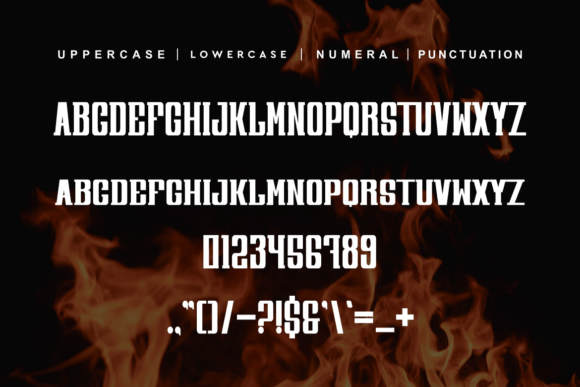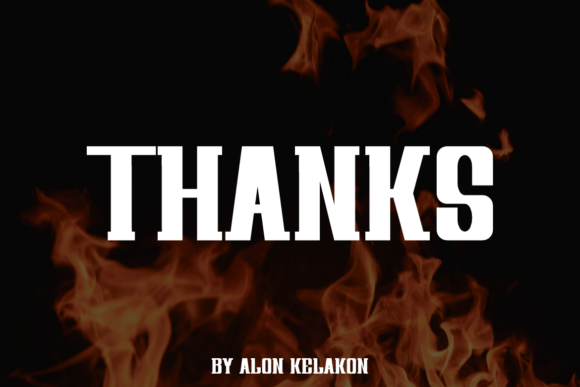
Introduction to Power Colthic Font Font
Fonts play a crucial role in design, and the Power Colthic Font font is a typeface that brings both character and versatility to any project. Whether you’re working on a branding project, a website, or a print design, the Power Colthic Font font offers a unique style that can elevate your work.
Introducing a strikingly unique typeface, meticulously crafted for the creative design enthusiast.
This versatile font breathes life into a myriad of creations such as labels, captivating movie scenes, eye-catching posters, theatrical title sequences, electrifying gig promotions, artistic album covers, sleek logos, and so much more This font bundle comes in OTF, TTF, and WOFF formats, ensuring compatibility and ease of use across various platforms and design applications.
The Power Colthic Font font is more than just a typeface – it’s a design tool that helps you communicate your message with style and clarity. Its unique character set and versatile design make it suitable for a wide range of applications, from elegant invitations to bold headlines.
With its carefully crafted letterforms and balanced proportions, the Power Colthic Font font ensures readability and visual appeal across all mediums.
The Power Colthic Font font stands out with its unique design, exceptional readability, and versatility across various design applications.